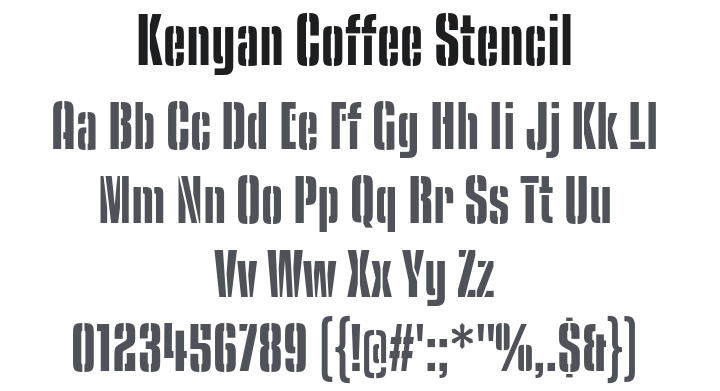
Kenyan Coffee Stencil Font
About Kenyan Coffee Stencil
Kenyan Coffee Stencil takes the condensed power of the original and adds engineered stencil cuts that enhance strength and legibility across every weight. Its tall proportions and distinctive cap waistlines give it a modern edge, while the precise gaps introduce rhythm without weakening the structure. Available in five weights with support for Latin, Greek, Cyrillic, and Vietnamese, it’s built for bold applications…logos, packaging, signage, and campaigns that need confident, functional typography with character. Kenyan Coffee Stencil works hard and looks sharp doing it.